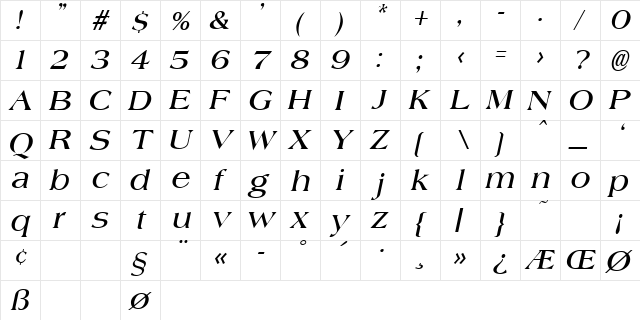
Jade Italic
Design Context for Jade Typeface
Jade is a composed and adaptable typeface that performs quietly and consistently across a wide range of design contexts. The slanted form adds forward momentum and visual energy.
Pro Tip: Try Jade for annotation and caption copy alongside an upright companion — the contrast in angle creates a dynamic but ordered typographic system.